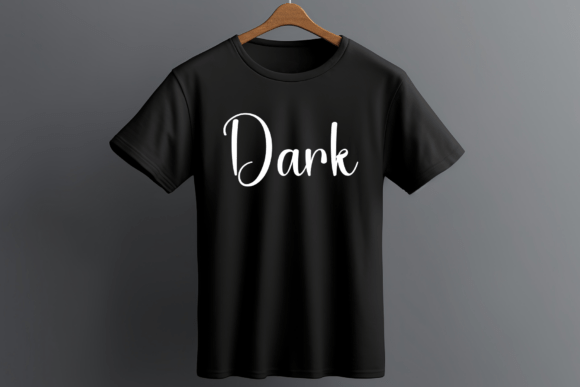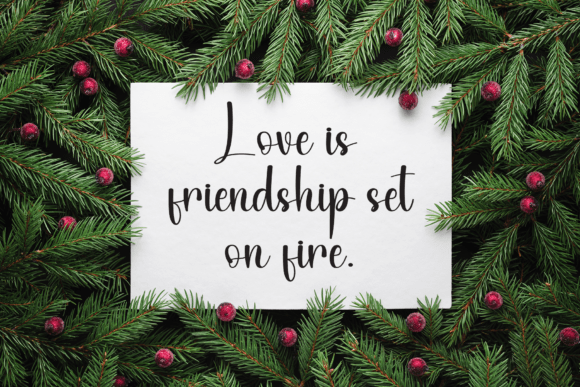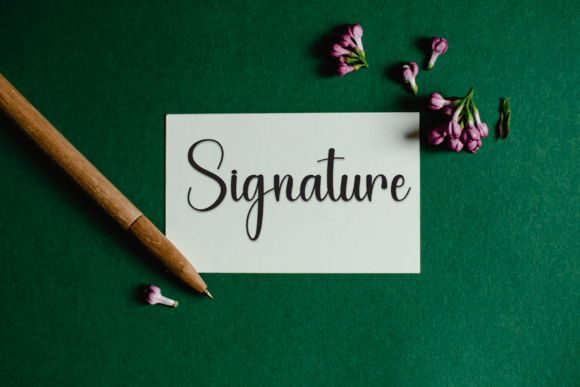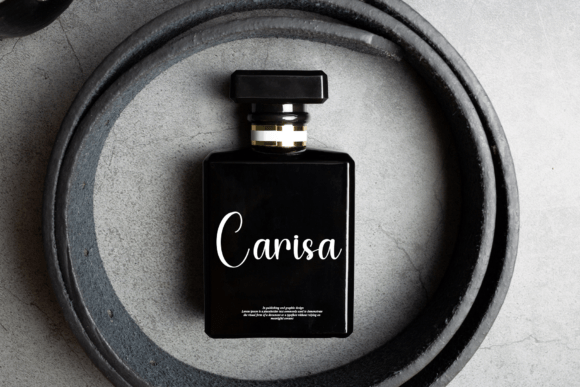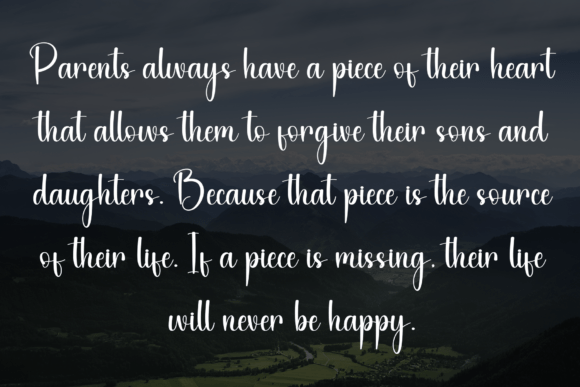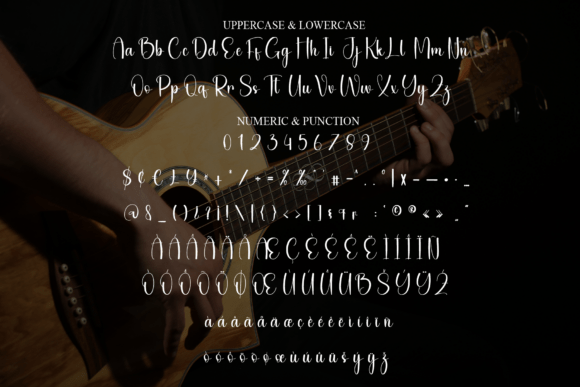
Introduction to Guitaris Font
Meet a beautifully handcrafted display font that practically bubbles over with charisma and allure.
The warm, affable character of this typography makes it a definitive choice for designing wedding invites, personalized cards, or any artwork that cherishes a whimsical touch This captivating font lends a feel of genuine hand-lettering, effusing an air of joy and charm with each crafted stroke.